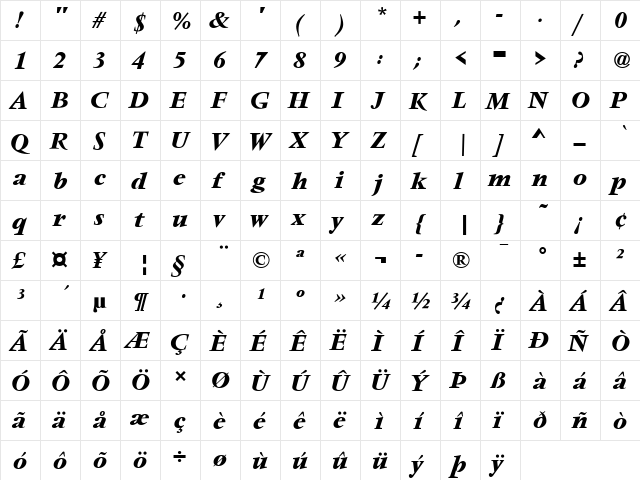
Vendome T Medium Italic
Design Context for Vendome T Typeface
Vendome T offers clean, dependable letterforms without strong stylistic allegiance, making it a practical choice for designers who need flexibility. Its italic angle brings a sense of urgency and motion to the letterforms.